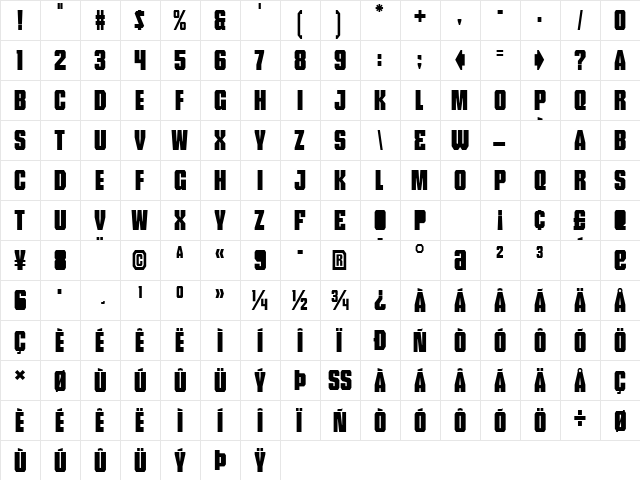
Tank Lite Regular
Design Context for Tank Lite Typeface
Tank Lite is a composed and adaptable typeface that performs quietly and consistently across a wide range of design contexts.